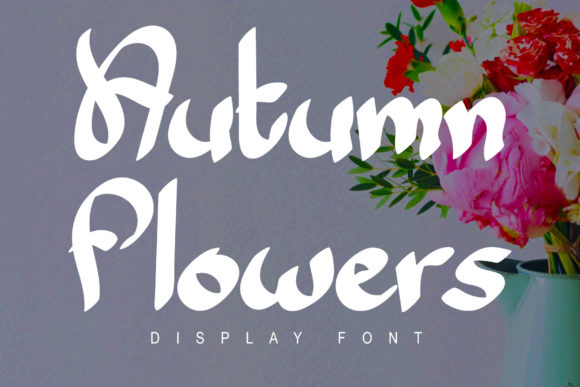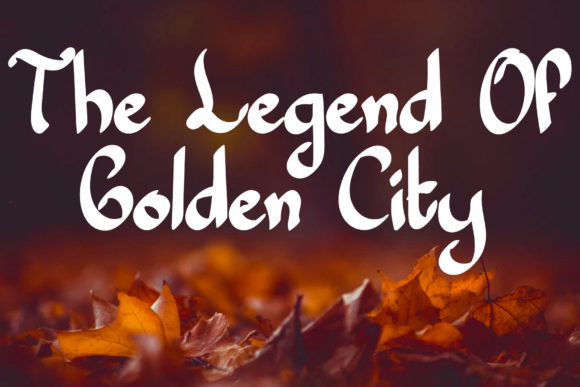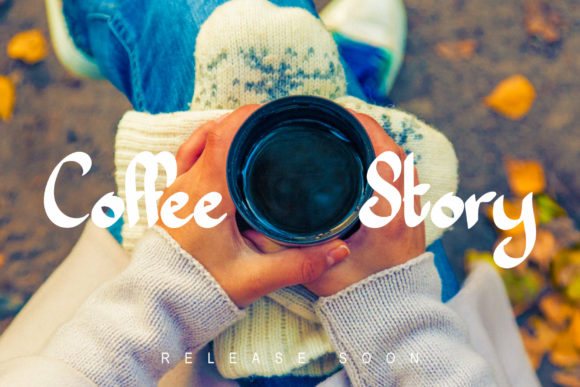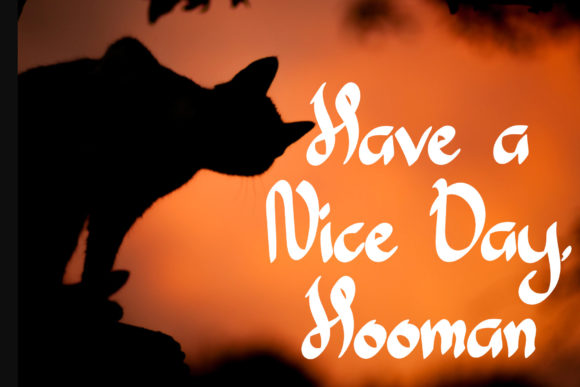
Autumn Flowers Font
About Autumn Flowers Font
Autumn Flowers is a delightful handwritten font that combines a thick lettered appearance with a dainty and neat style. Its unique combination of thickness and elegance makes it a perfect choice for adding a touch of life and vibrancy to your designs.
The thick letterforms of Autumn Flowers give the font a bold and eye-catching presence. This makes it ideal for grabbing attention and creating impactful headlines, titles, or logos. The thick strokes provide a sense of strength and boldness, while still maintaining an overall delicate and graceful look.
Despite its boldness, Autumn Flowers retains a neat and refined quality. The letterforms are well-crafted, with clean lines and careful attention to detail. This precision adds a sense of elegance and sophistication to the font, making it suitable for a wide range of design projects.
The sweet and lively style of Autumn Flowers brings a sense of joy and playfulness to your designs. The font’s whimsical charm is perfect for brightening up various projects, such as greeting cards, invitations, quotes, social media posts, and more. Whether you’re designing for a special occasion or simply want to add a touch of liveliness to your creations, Autumn Flowers is an excellent choice.
The versatility of Autumn Flowers allows it to be used in both formal and informal contexts. It can be paired with other fonts to create interesting combinations, or used on its own to make a bold statement. The font’s daintiness and neatness make it easy to read, ensuring legibility even at smaller sizes.
In summary, Autumn Flowers is a thick lettered yet dainty and neat handwritten font that brings a sweet and lively style to your designs. Its bold and graceful presence, combined with its versatility, makes it an excellent choice for a variety of projects. Whether you’re creating invitations, logos, or social media graphics, Autumn Flowers is sure to brighten up your designs and add a touch of life to your typography.